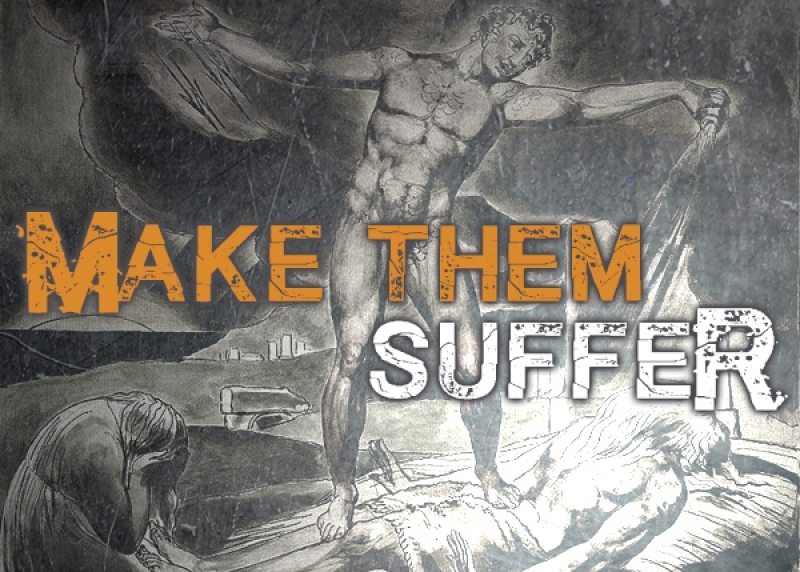
Make Them Suffer by Chris Vile / Font Monger is a captivating display font that exudes a haunting, distressed aesthetic. Characterized by its jagged, uneven letterforms and a gritty, weathered texture, this font evokes a sense of unease and emotional intensity. The striking, irregular outlines and subtle imperfections lend a raw, unsettling quality, making it a powerful choice for projects seeking a bold, attention-grabbing visual impact.
This font's versatility shines through its ability to convey a range of tones, from the visceral and ominous to the edgy and rebellious. Its unique character makes it an excellent fit for album covers, movie posters, event branding, and other design applications where a strong, emotive statement is desired.
Make them SuffeR Regular is a font by Font Monger, designed by Chris Vile in 2015.